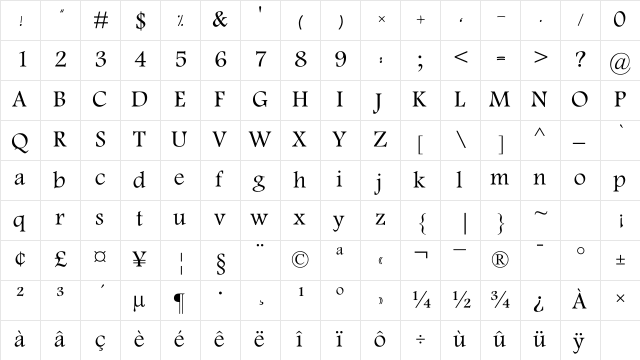
Design Context for K Kamran Typeface
K Kamran is a composed and adaptable typeface that performs quietly and consistently across a wide range of design contexts.